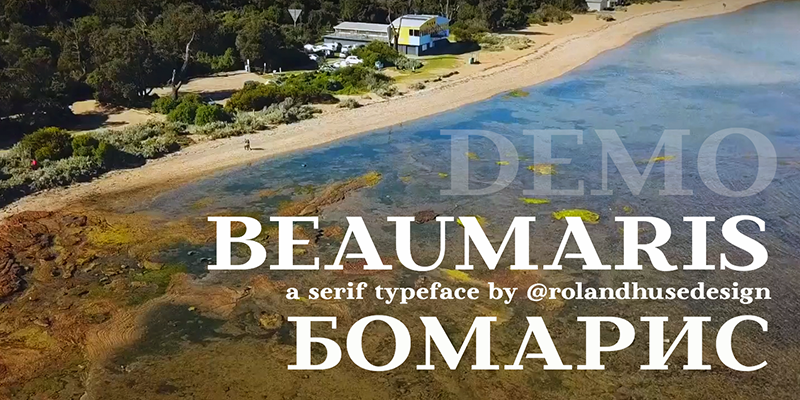
Preview and download Beaumaris Font. Created by Runes & Fonts in Basic Serif styles with Demo license.
This is the demo version of the font called �BEAUMARIS� serif typeface. Named after a nice bay area in Australia which I want to visit one day. This demo version contains Characters a-z A-Z numbers 1-9 and Russian alphabet lowercase and uppercase letters. (Full version has stylistic alternates, discretional ligatures, standard ligatures, small caps, fractions etc.) Free for personal use only. For commercial use and/or full version please visit: store.rolandhuse.com or email me: contact@rolandhuse.com You MAY NOT sell my fonts or claim them as your own. You MAY NOT edit or rename my fonts. You MAY redistribute my fonts if: 1. You credit me (Roland Huse). 2. Keep the READ ME file intact within the zip folder. 3. Provide a link back to my website (www.rolandhuse.com). Thank you & I hope you like this font, Roland Follow my work on instagram @rolandhusedesign visit https://rolandhuse.com |